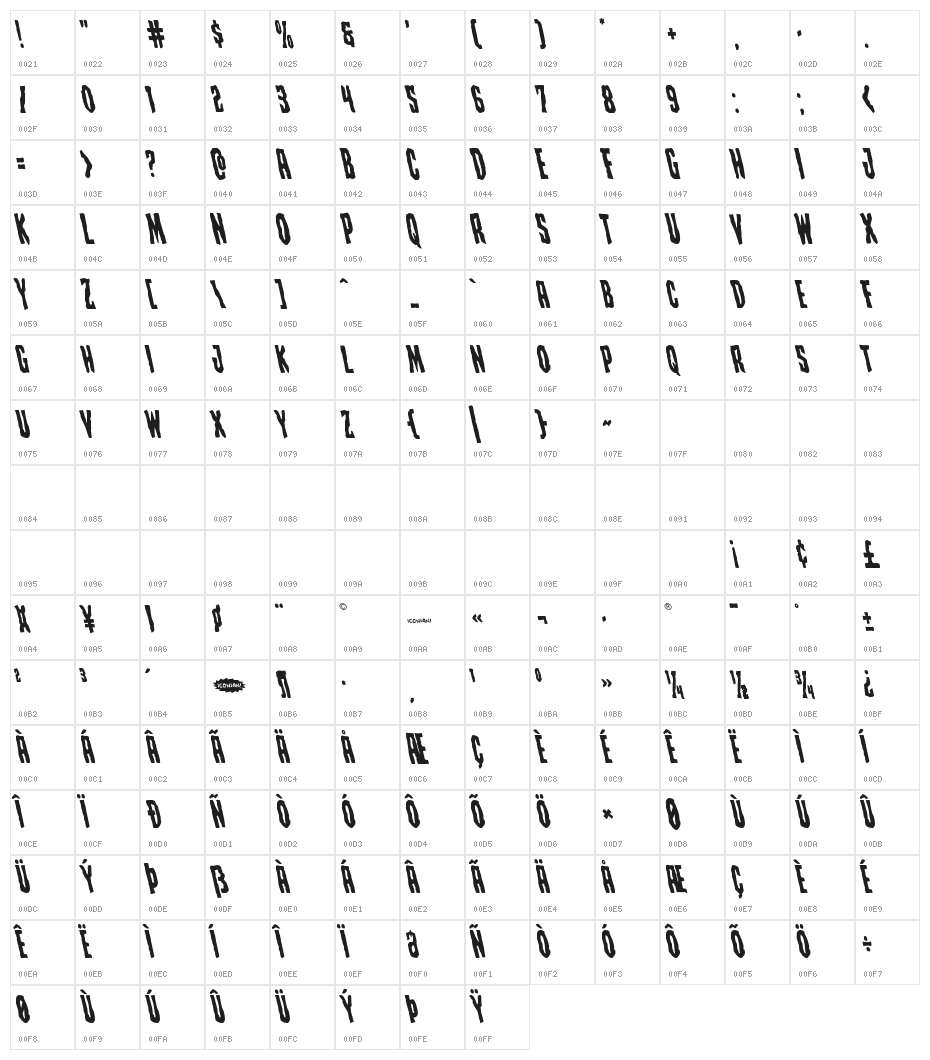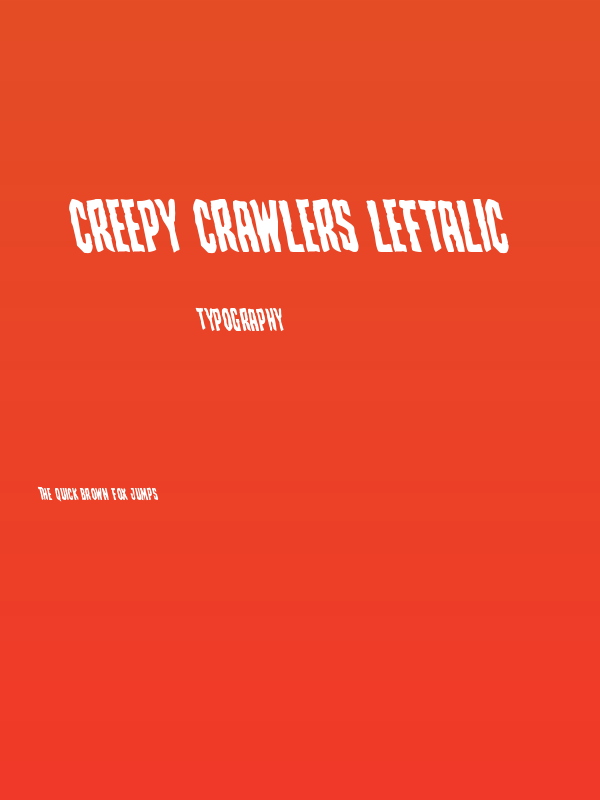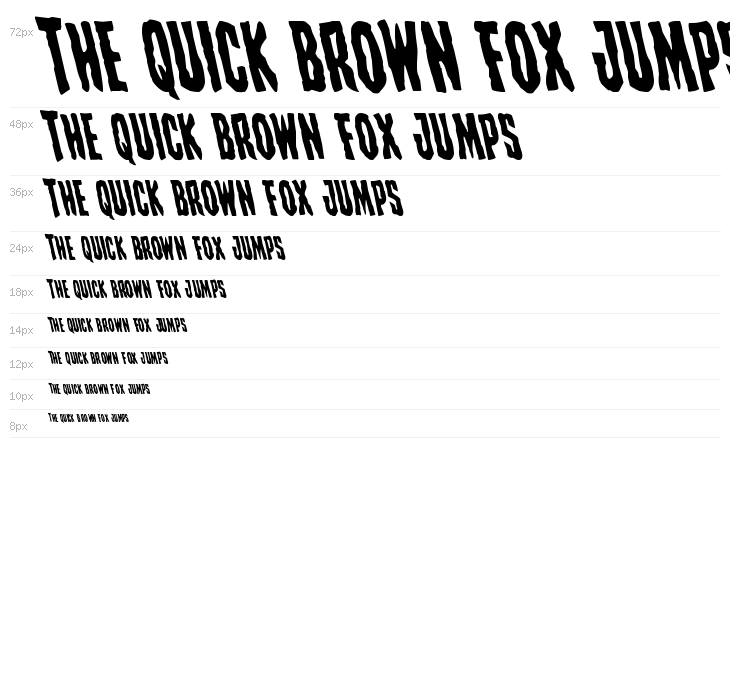
Creepy Crawlers Leftalic Font
Creepy Crawlers Leftalic Description
This font features a bold and jagged design, reminiscent of horror or thriller themes. The letters are irregularly shaped with uneven edges, giving a sense of movement and unease. The slanted orientation adds to its dynamic and unsettling appearance, making it ideal for projects that aim to evoke a sense of mystery or fear. The numbers and special characters maintain the same eerie style, ensuring consistency across all text elements. This font is particularly suitable for Halloween-themed designs, horror movie posters, or any creative work that requires a spooky and dramatic flair.
| Proposed Projects | Ideal for Halloween designs, horror movie posters, spooky invitations, and themed event promotions. |